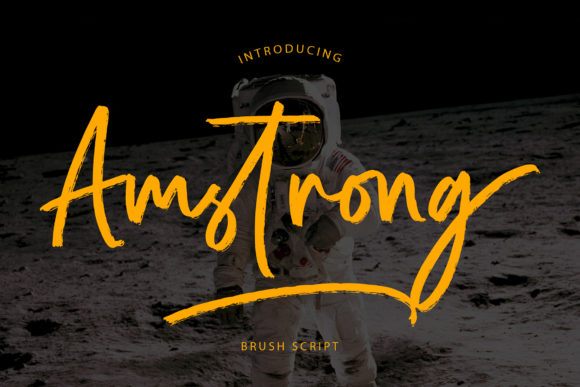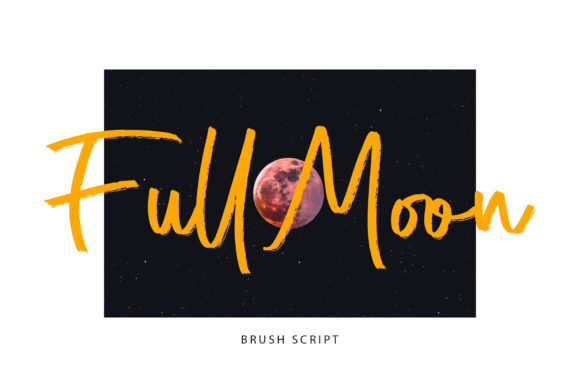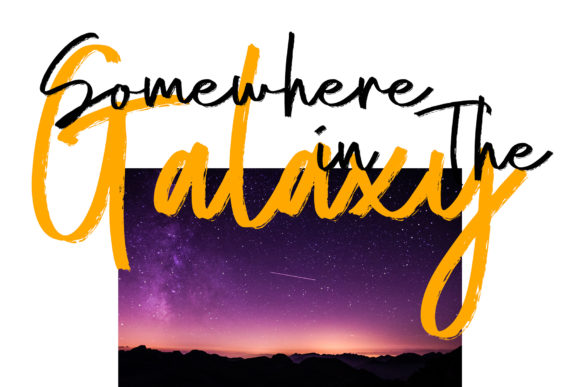
About Amstrong Font
Amstrong is a beautiful brush font that will add an elegant, luxurious and modern look to your designs!
This hand-written font is perfect for branding projects, logos, wedding designs, social media posts, advertisements and everything else you can think of.